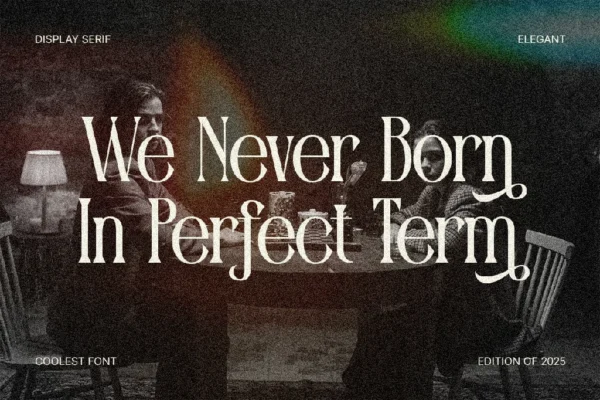
VOCARE – Elegant Serif Font for Luxurious Branding
VOCARE Font is a timeless and refined serif typeface that brings a touch of sophistication to every design. With its high-contrast strokes, graceful curves, and classic elegance, this font is crafted for creators who value style, clarity, and impact.
Designed for luxury branding, editorial design, fashion campaigns, and premium packaging, VOCARE strikes the perfect balance between modern finesse and traditional charm. Whether used in logos, headlines, or print layouts, this font commands attention with a subtle yet confident voice.
Perfect For:
- Fashion and lifestyle branding
- Editorial layouts and magazine titles
- Beauty product packaging
- Wedding invitations & upscale stationery
- Website headers & social media graphics
Bring Sophistication to Your Brand
Make your branding unforgettable with VOCARE’s classy aesthetic. Whether you’re working on a high-end logo or a bold editorial headline, this font delivers elegance and authority.